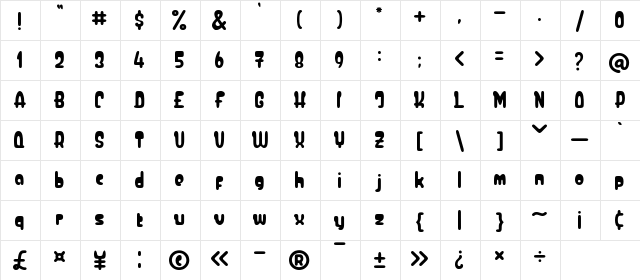
Baby Boo Regular Font Preview
Baby Boo Regular
Baby Boo Regular Font Details
| Designer | Ondi Indriana |
Design Context for Baby Boo Typeface
Baby Boo takes a measured approach to typography — its balanced proportions and neutral character make it a reliable workhorse for both digital and print work.